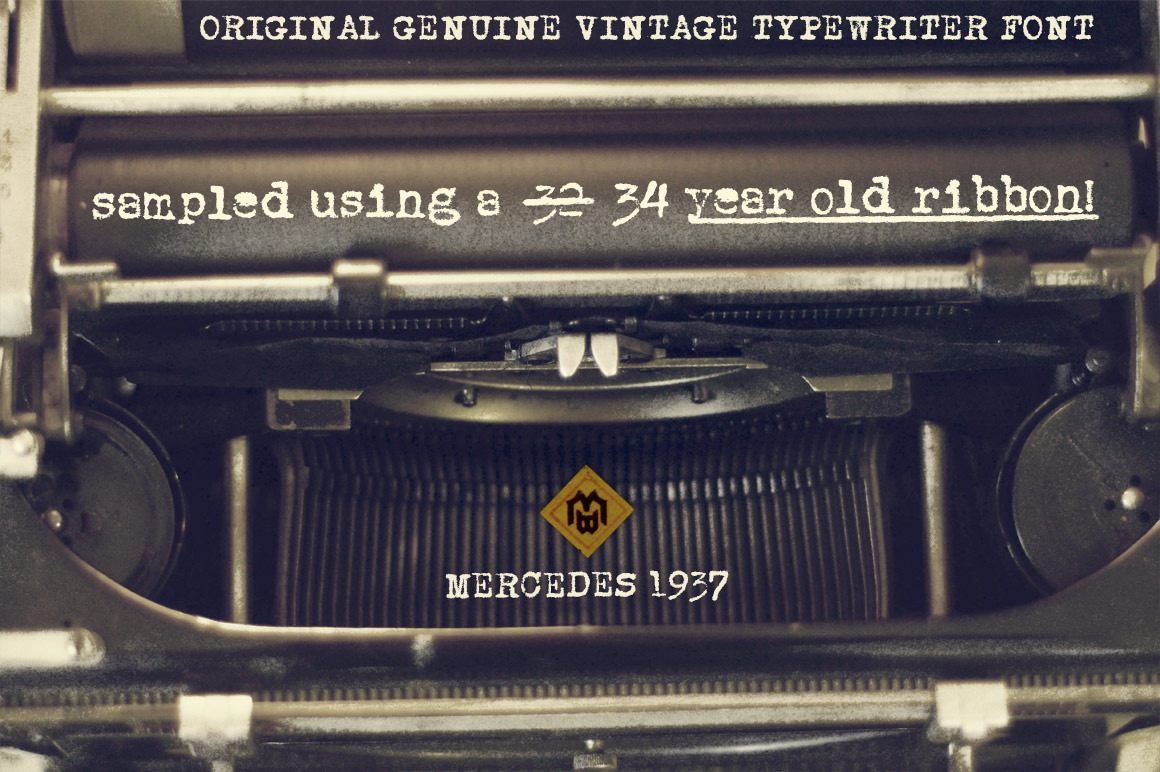
Mercedes1937 - Old Typewriter Font
There is an interesting story about this vintage professional Mercedes typewriter. My grandfather, who was a Yugoslavian partisan during the WWII captured it from a Wehrmacht command building during an attack, and he kept it in a perfect shape for so many years. After I inherited it, I wanted to share it’s uniqueness (as well as it’s story). I’ve intentionally kept it in it’s original condition - I haven’t replaced the ribbon that was some 34 years old (or more) before sampling the font, and it turned out really nice.
One more important thing - I have used ONLY it’s original set of characters (Latin with some Balkan-based letters).
With it’s untouched originality and uniqueness it fits to our modern culture perfectly. There are no compromises here - there are no popular @,#,$ and other characters you would expect in a font. You will get EXACTLY what’s on this genuine “Mercedes” typewriter with so much soul.